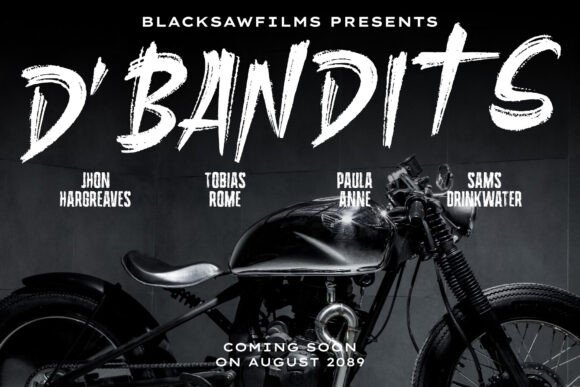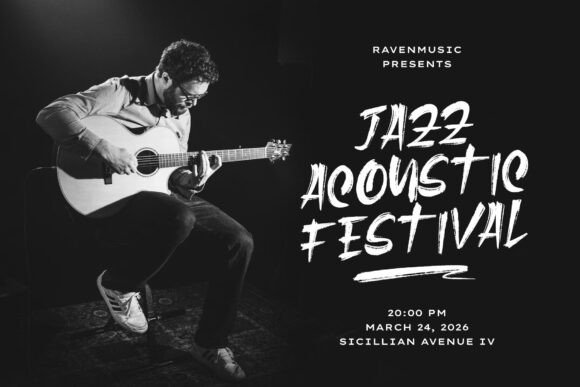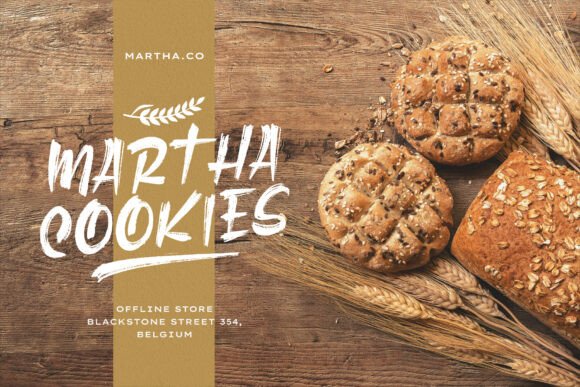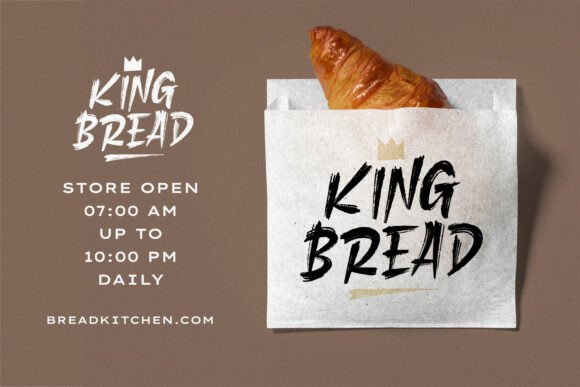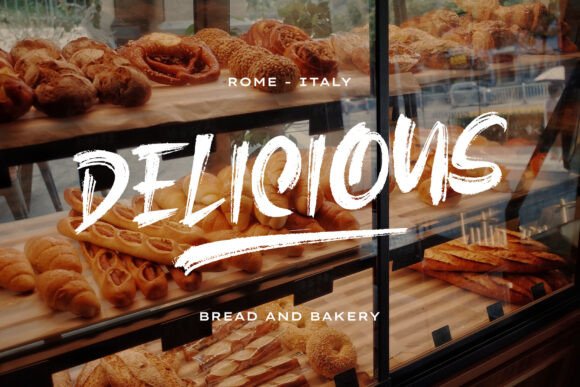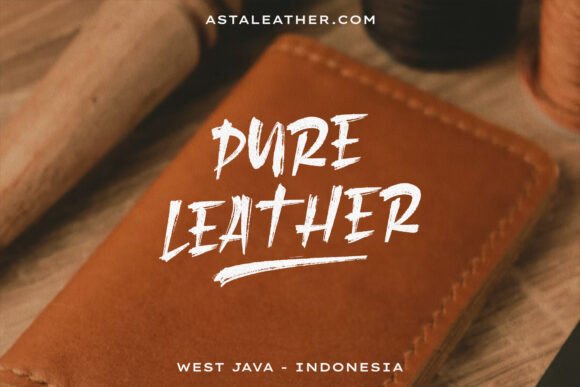
Unleash Your Creativity with Dark Rusk Font
Have you ever been in the middle of a design project, and suddenly, you’re stuck on finding the perfect font? I recall a particularly frustrating experience while working on a branding project for a trendy coffee shop. My client wanted a bold, edgy look that would appeal to the young and adventurous crowd. After scouring through countless font libraries, I stumbled upon Dark Rusk Font. It was love at first sight! 💡
Dark Rusk is a powerful dry brush font that brings energy and attitude to any design. Crafted from natural, hand brush strokes, this font exudes a raw, expressive vibe that’s perfect for projects that demand a bold, rebellious edge.
What I Love About Dark Rusk Font
Here’s what makes Dark Rusk Font a standout in my book:
- ✨ Unique Texture: The dynamic texture of Dark Rusk gives your designs a handcrafted, urban feel that’s hard to replicate with other fonts.
- ✅ Versatility: Whether you’re working on logos, food & beverage branding, promotional campaigns, video titles, product packaging, quotes, posters, flyers, t-shirts, or eye-catching text overlays, Dark Rusk is up to the task.
- 💥 Expressive Strokes: The raw, expressive strokes of Dark Rusk add a level of emotion and energy to your designs that’s sure to captivate your audience.
Honest Review: A Few Quirks to Consider
While Dark Rusk Font is an amazing addition to any design project, there are a few quirks to keep in mind:
- 🤔 Legibility at Small Sizes: Like many script fonts, Dark Rusk can be a bit tricky to read at small sizes. Make sure to test it out at different scales to ensure it works for your project.
- ⚠️ Limited Formality: Dark Rusk is an edgy, bold font that’s not suitable for formal or corporate designs. Use it when you want to add a rebellious touch, but not when you need to convey professionalism.
One of the best things about Dark Rusk Font is its OpenType features and glyphs. These allow you to customize your text with:
- Stylistic Alternates: Swap out letters or words with alternate versions that add a unique touch to your text.
- Swashes: Add decorative flourishes to your text that enhance its visual appeal.
- Ligatures: Combine letters or words in a way that creates a more natural, flowing look.
The Story Behind Dark Rusk Font
Dark Rusk Font was inspired by the urban landscapes and street art of the city. Its creator, a young designer with a passion for graffiti and hand-lettering, wanted to capture the raw energy and emotion of the city in a font. The result is a bold, expressive typeface that’s perfect for designers who want to add a rebellious touch to their projects.
| Is Dark Rusk Font suitable for body text? | While Dark Rusk Font is stunning for headlines and titles, it’s not ideal for body text due to its bold, expressive nature. Use it sparingly to add emphasis and visual interest to your designs. |